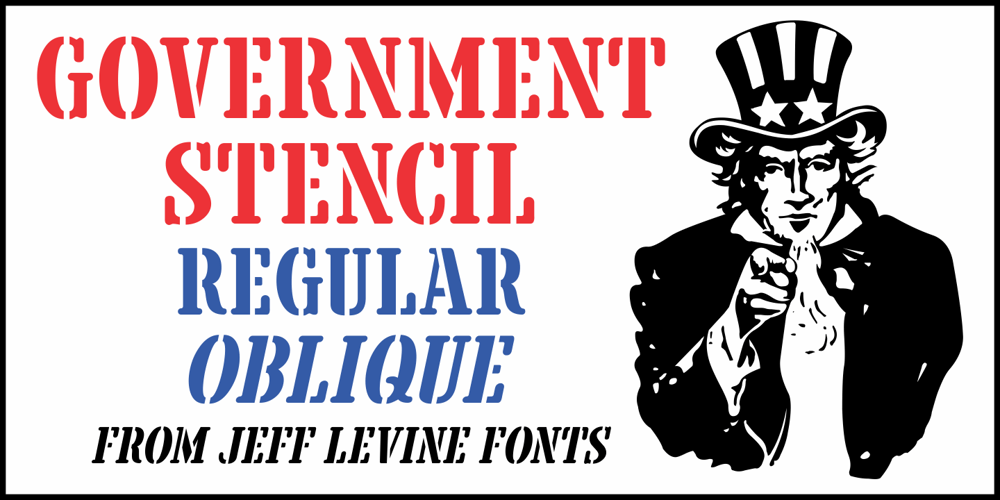
Government Stencil JNL
Government Stencil JNL font
Government Stencil JNL Font Family was designed by Jeff Levine and published by Jeff Levine. Government Stencil JNL contains 2 styles and family package options. A poster for the 1952 film “Diplomatic Courier” featured the title hand lettered in a bold serif stencil design. With some modifications, this served as the model for Government Stencil JNL, which is available in both regular and oblique versions.